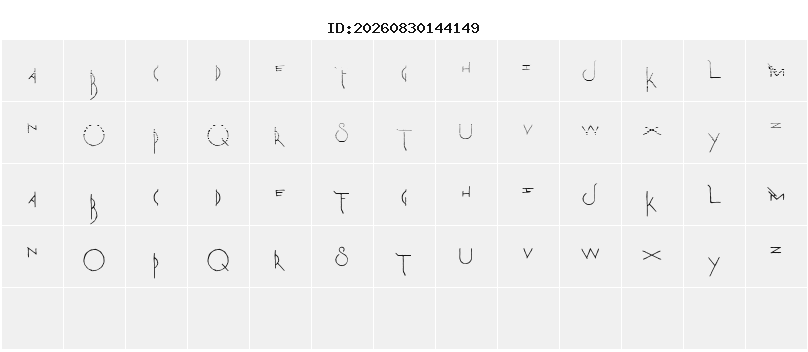
The Martian Chronicles Preview
About The Martian Chronicles.ttf
The Martian Chronicles.ttf is a modern, elegant sans-serif font designed for ultimate readability and visual harmony. Perfect for branding, headlines, web design, and print materials.